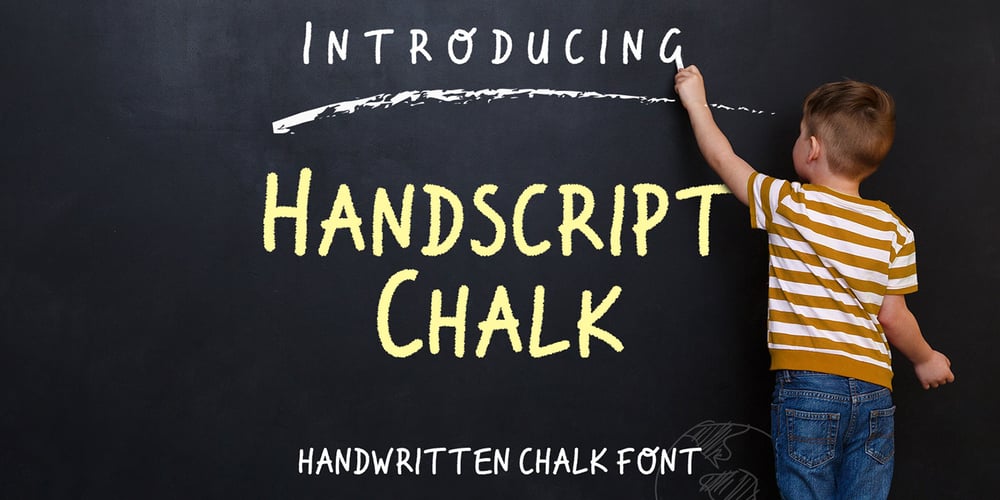
Handscript Chalk Font Family was designed by Mohammed Lamjidi and published by Beast Designer. Handscript Chalk contains 1 styles and family package options. Handscript Chalk Font is a charming handwritten script font that captures the essence of classic chalkboard writing. With its textured, chalk-styled letters, this font brings a nostalgic and playful feel to your creative projects. Perfect for school-themed designs, restaurant menus, invitations, quotes, or any project that aims to evoke a sense of creativity and fun, Handscript Chalk adds a personal, hand-drawn touch that stands out.